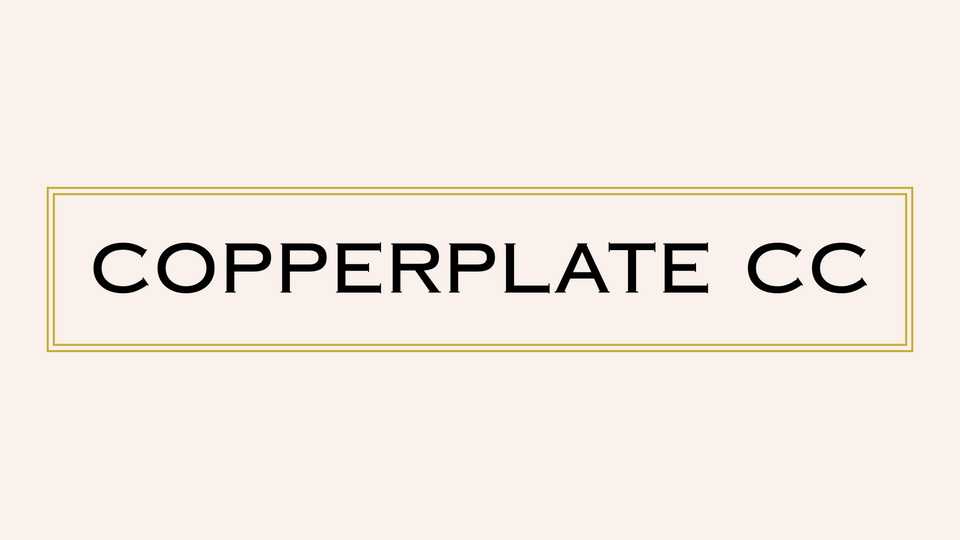
Download Copperplate CC typeface, a serif font family in two weights, a revival of American classic Copperplate Gothic, designed by Frederic Goudy in 1902.
Designer: Indestructible Type